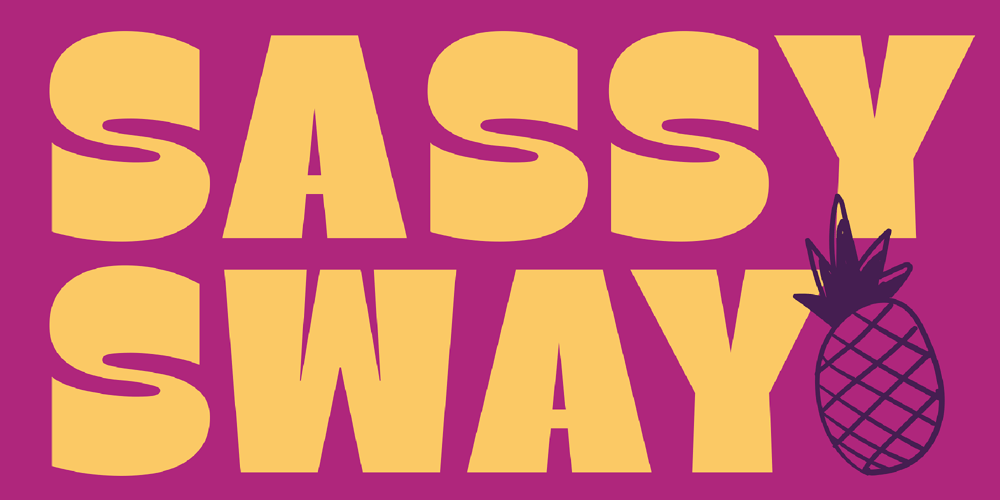
Sassy Sway Font Family was designed by Igor Ovsyannykov and published by Hipfonts. Sassy Sway contains 1 styles and family package options. Elevate your designs with Sassy Sway, the bold and dynamic typeface that makes every word a statement. Perfect for headlines, posters, branding, and any project that demands a strong visual impact, Sassy Sway stands out with its chunky, geometric forms and playful, confident style.This typeface is designed to grab the spotlight and hold it, ensuring your message is not just read, but remembered. Its thick strokes and vibrant personality bring a sense of fun and excitement to your text, making it ideal for creative projects that need to exude energy and boldness.Don’t settle for ordinary fonts when you can make a bold statement with Sassy Sway. Bring your designs to life with this captivating typeface and let your creativity shine!